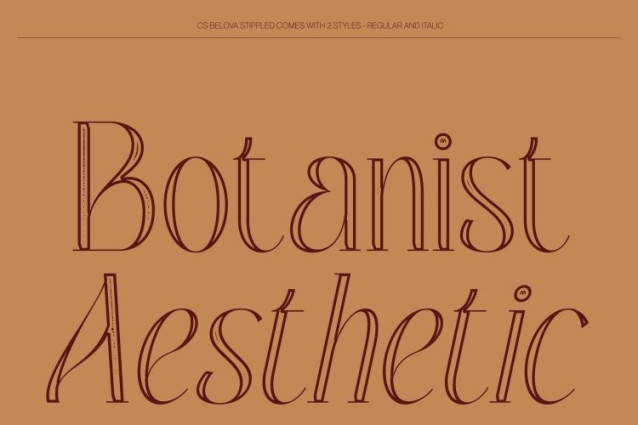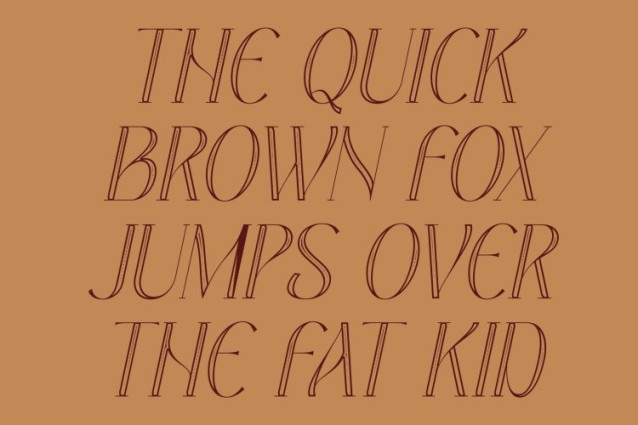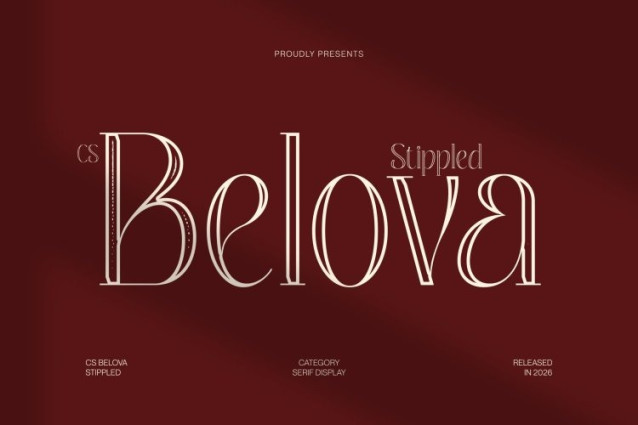
CS Belova Stippled Font
CS Belova Stippled Font – This is an elegant serif font crafted with clean, slender lines and enhanced by a delicate stippled texture. Inspired by traditional ink-dot techniques, the subtle dotwork adds depth and visual softness to its refined structure. The result is a serif that feels polished, airy, and artistically expressive while maintaining clarity and balance.
Modern Sophistication with a Playful Touch
What distinguishes is its graceful blend of modern elegance and playful nuance. Gentle curves and well-proportioned forms are enriched by the textured surface, creating a stylish aesthetic that feels fresh and full of personality. The stippling softens the formality of classic serif construction, allowing beauty and creativity to shine through.
Refined Simplicity with Artistic Character
Simplicity becomes a statement through slender strokes and clean construction enhanced by tactile detailing. The stippled finish introduces subtle movement and visual interest, giving the font a contemporary yet timeless presence. It remains highly readable while offering an expressive, fashionable tone.
Perfect for Fashion and Editorial Expression
Ideal for fashion branding, magazine layouts, posters, packaging, and sophisticated headlines, brings modern beauty and elegance to every composition. Its combination of airy refinement and textured artistry ensures designs feel captivating, stylish, and gracefully distinctive.